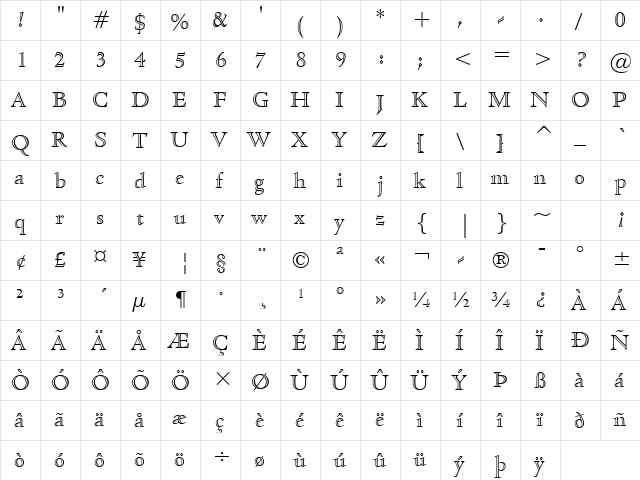
CloisterOpenFace BT Regular
Design Context for CloisterOpenFace BT Typeface
CloisterOpenFace BT is a composed and adaptable typeface that performs quietly and consistently across a wide range of design contexts.